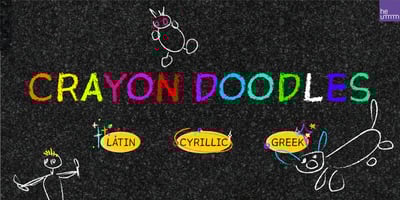
HU Crayon Doodles
HU Crayon Doodles font
HU Crayon Doodles Font Family was designed by Yehyeong Lee, SangHyeon Park, Jihye Lee and published by Heummdesign. HU Crayon Doodles contains 1 styles and family package options. EnglishHU Crayon Doodles is a cute handwritten typeface that can be used to express any lively or active moment. The alphabets are not aligned or evenly written but are crooked like scribble, which gives you funny and informal vibe.There are 1 weights of HU Crayon Doodles : lightGreekΤο HU Crayon Doodles είναι μια χαριτωμένη χειρόγραφη γραμματοσειρά που μπορεί να χρησιμοποιηθεί για να εκφράσει οποιαδήποτε ζωντανή ή ενεργή στιγμή.Τα αλφάβητα δεν είναι ευθυγραμμισμένα ή ομοιόμορφα γραμμένα, αλλά είναι στραμμένα σαν σκαρίφημα, κάτι που σας δίνει αστεία και ανεπίσημη ατμόσφαιρα.Υπάρχουν 1 βάρη του HU Crayon Doodles : lightCyrillicHU Crayon Doodles – это симпатичный рукописный шрифт, которым можно обозначить любой живой или активный момент.Алфавиты не выровнены и написаны неравномерно, они изогнуты, как каракули, что создает забавную и неформальную атмосферу.HU Crayon Doodles имеет 1 толщины: light